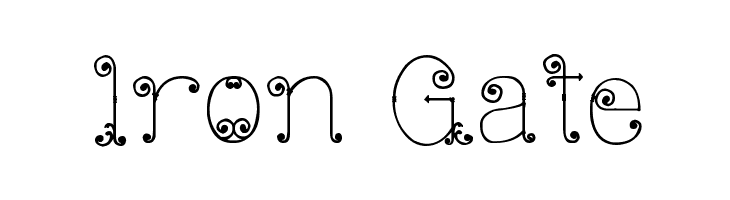
A whimsical, decorative font with playful curls and loops.
A whimsical, curly font with playful loops and flourishes.
A whimsical and decorative font with playful curls and swirls.
A whimsical, curly font with playful swirls and loops.
A whimsical handwritten font with decorative swirls and curls.
A whimsical, curly serif font with a playful, hand-drawn style.
A whimsical, decorative font with curly, hand-drawn elements.